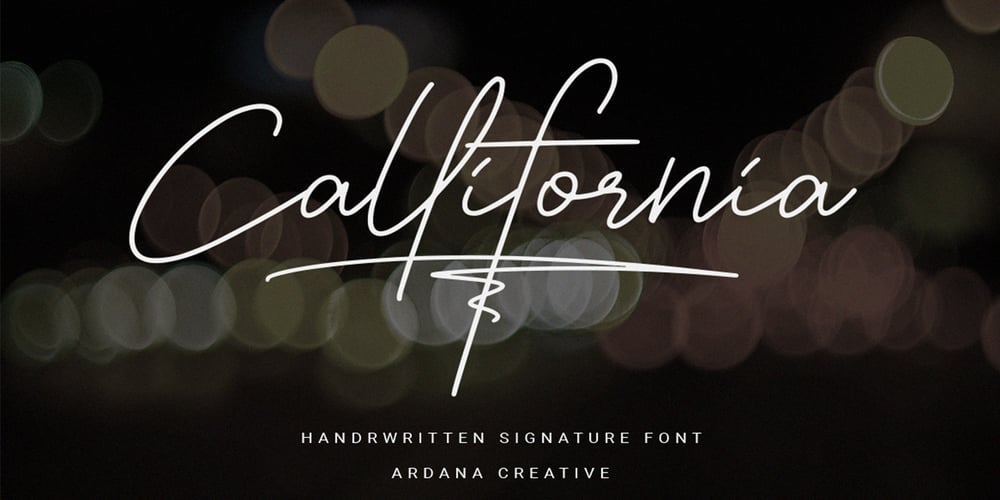
Callifornia Script Font Family was designed by Ferry Ardana Putra and published by Ferry Ardana Putra. Callifornia Script contains 1 styles and family package options. Callifornia is stylish signature script font which support OpenType features and includes, numeral, punctuation, ligatures and it also supports multi-languages. This font is perfect for branding projects, logo, wedding designs, social media posts, advertisements, product packaging, product designs, label, photography, watermark, invitation, stationery and any projects that need elegant feel.FEATURES• Ligatures• Uppercase and Lowercase letters• Numbering, Symbols, and Punctuations• Multilingual Support • Support for Adobe Illustrator, Corel Draw, Indesign or Adobe Photoshop • Support for MAC or WINDOWS